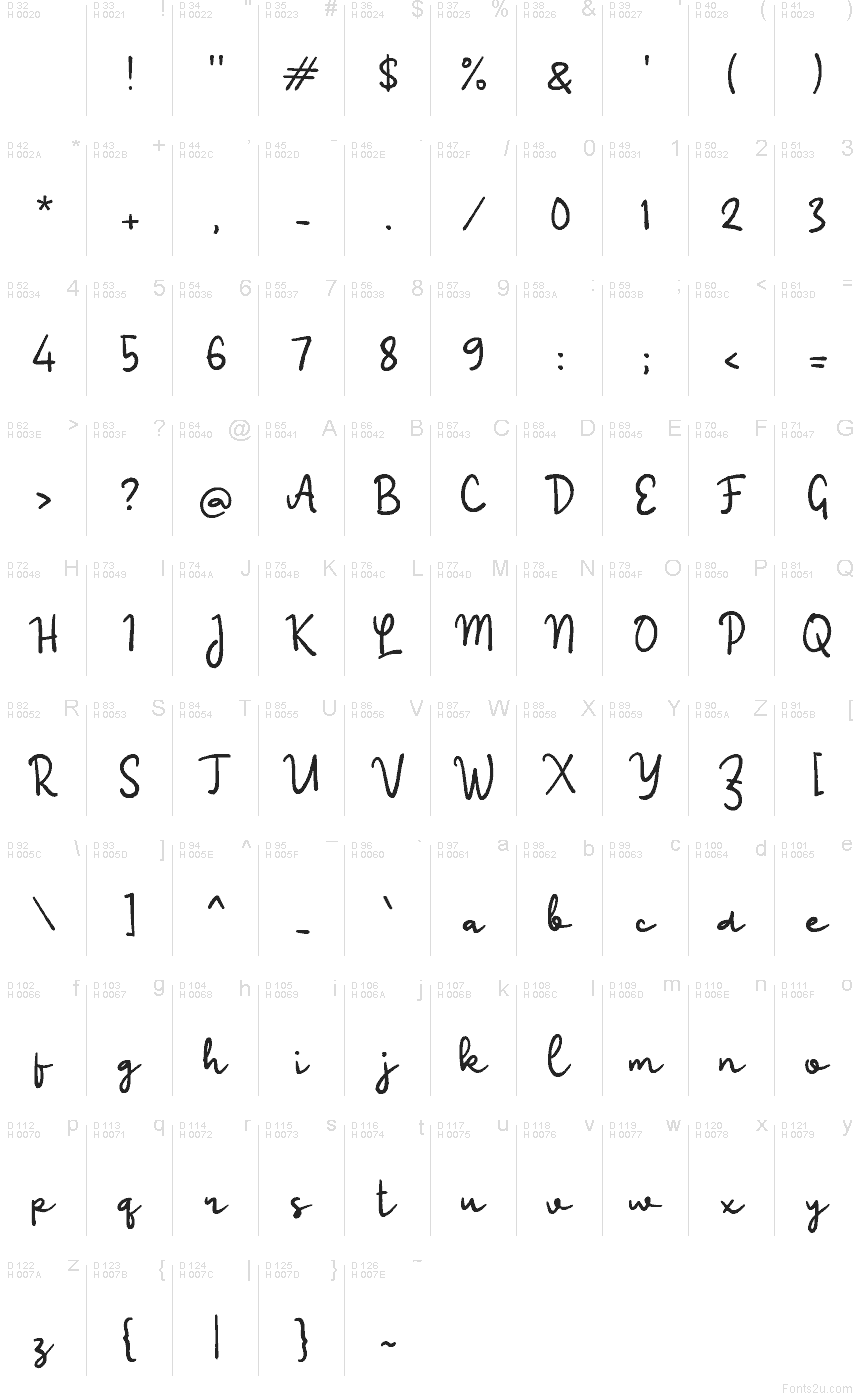
Pabaeng Signature
Pabaeng Signature font by wep is a free handwritten script typeface that captures the ease of a quick, confident signature. The strokes feel inky and slightly irregular, like they were written with a smooth pen on textured paper, giving designs a natural, personal touch without looking messy. Its light, flowing rhythm and gentle curves make it feel approachable and modern rather than overly ornate.
Using Pabaeng Signature, you can add a human, signed-off feel to logos, social media graphics, product packaging, invitation cards, and personal branding assets. This free font also works beautifully for quote images and blog headers where you want warmth over formality. Try pairing it with a clean sans-serif for body text and keep Pabaeng Signature at larger sizes so its subtle wiggles and pen-like texture can shine.